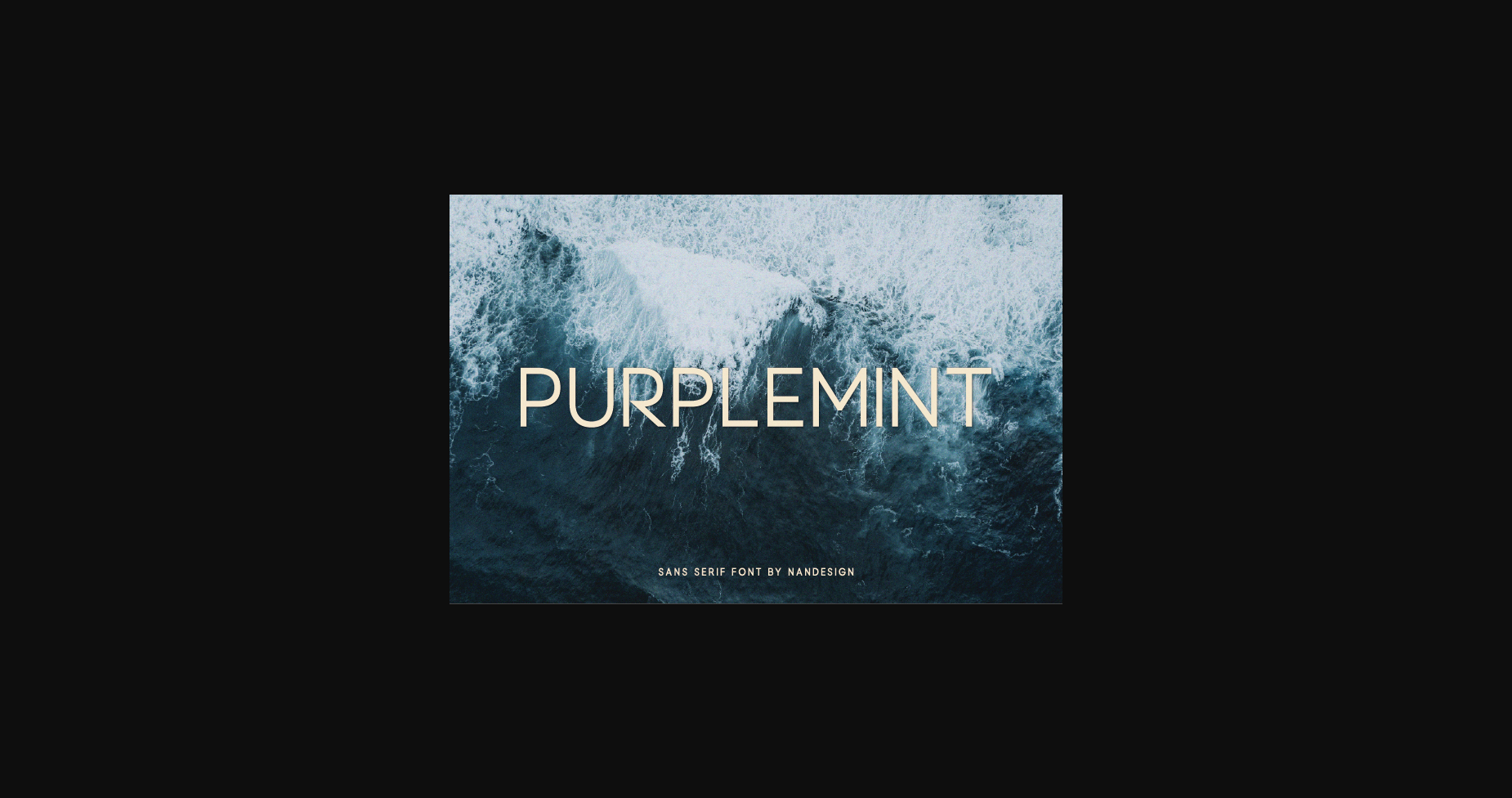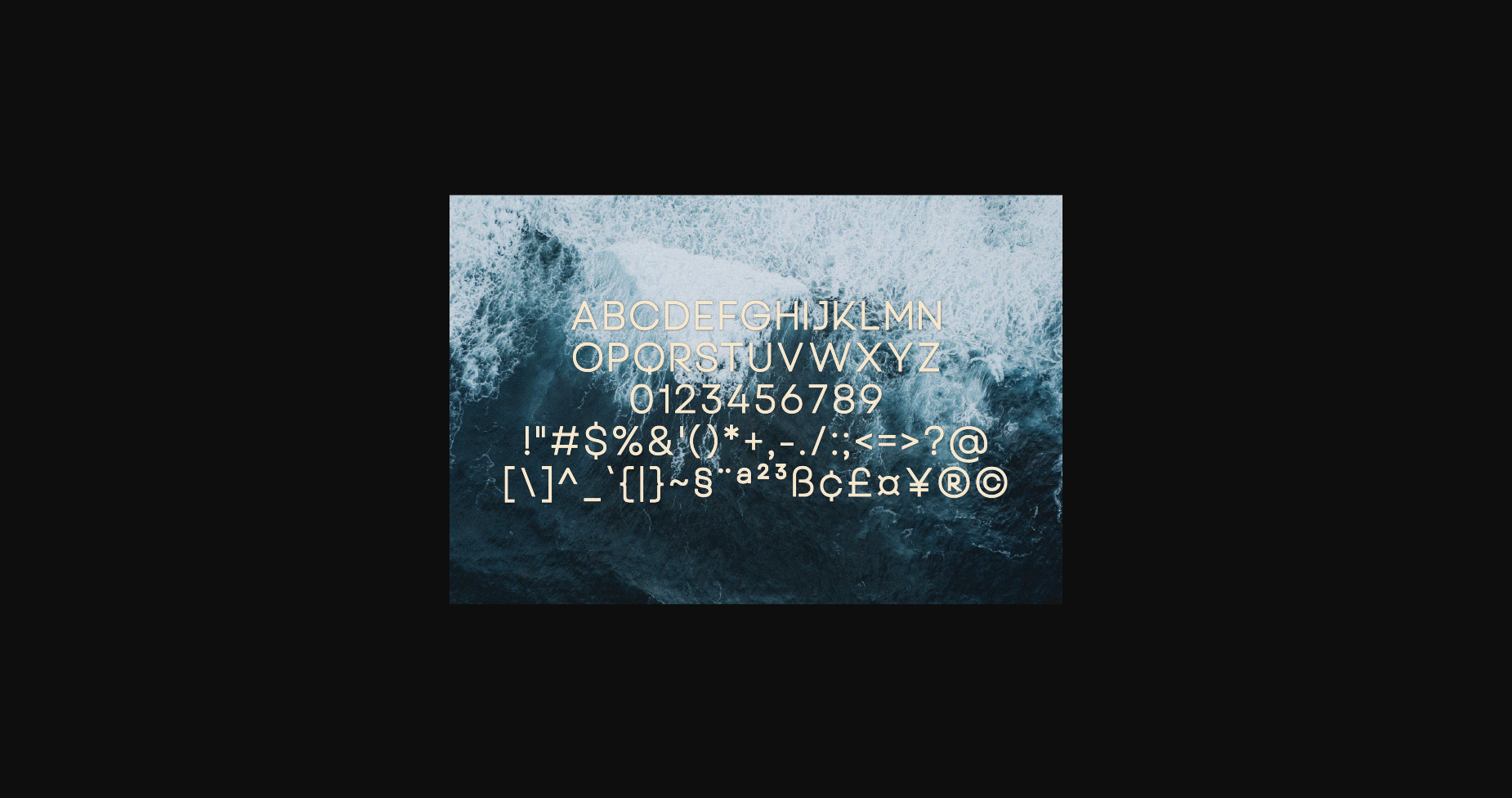
About Purplemint Font
Purplemint is a cool and simple lettered sans serif font, designed to complement every project you’re working on.
Use to create beautiful headings, gorgeous invitations, stunning logos, and so much more!